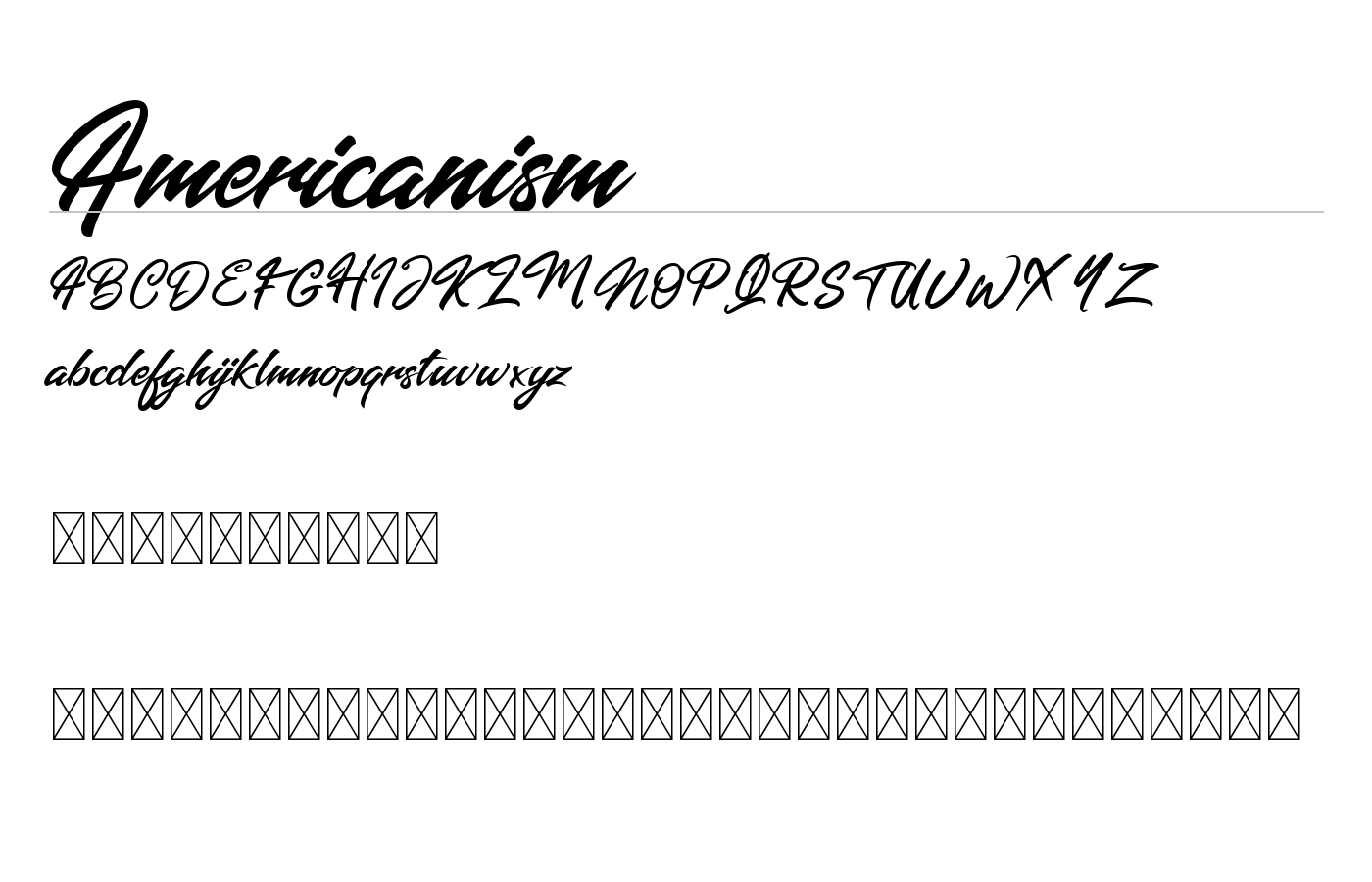
Americanism is an elegant script font with fluid, brush-like strokes that convey a sense of sophistication and warmth. Its smooth, connected letterforms and moderate contrast create a stylish yet approachable feel, making it perfect for branding, invitations, and headlines that seek a refined and personal touch. This font shines in designs that aim to evoke creativity and elegance while maintaining readability and charm.
Americanism Font
About Americanism Font